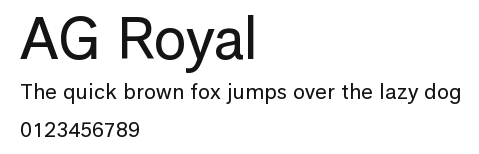
About AG Royal.ttf
AG Royal.ttf is a modern, elegant sans-serif font designed for ultimate readability and visual harmony. Perfect for branding, headlines, web design, and print materials.